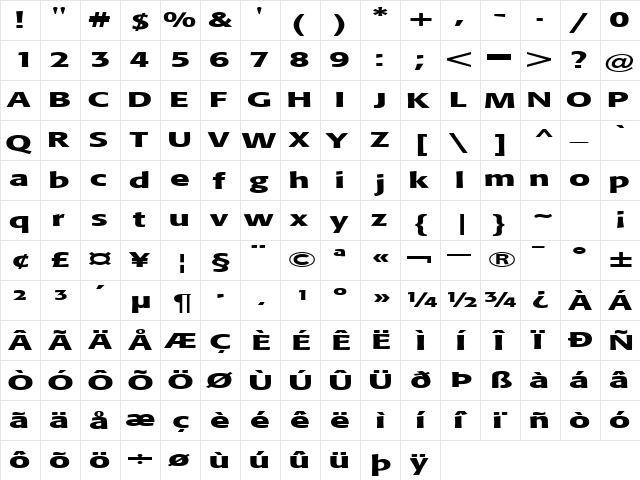
MARKETPRO Regular Font Preview
MARKETPRO Regular
MARKETPRO Regular Font Details
Design Context for MARKETPRO Typeface
MARKETPRO offers clean, dependable letterforms without strong stylistic allegiance, making it a practical choice for designers who need flexibility.